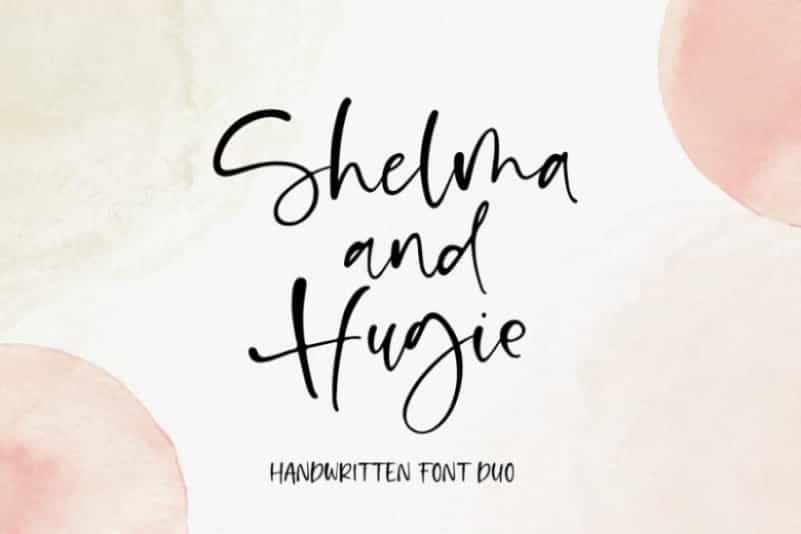
Discover Shelma & Hugie Font Duo, part of the Calligraphy Handwritten collection—a versatile and unique font perfect for adding a personal touch to your projects. Download it for free and enjoy crafting designs with style, from invitations to social media posts. This font is available exclusively for personal use, giving you the freedom to create without limits. Unlock your creativity with Shelma & Hugie Font Duo today!
Introducing Shelma & Hugie Script. It’s a natural handwritten font, this font Is perfect for logo, invitation, stationery, wedding designs, social media posts, advertisements, product packaging, product designs, label, photography, watermark, special events or anything.